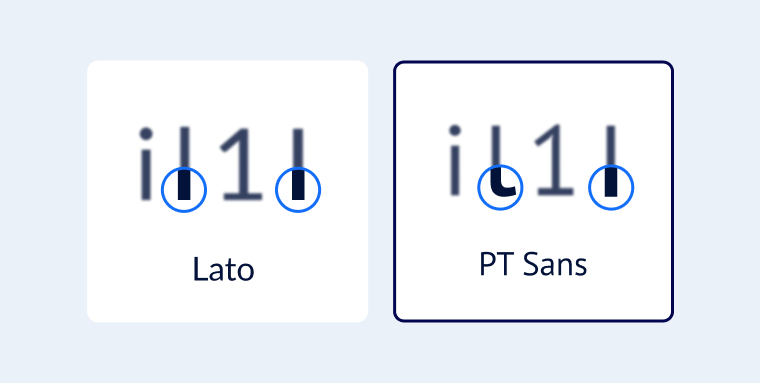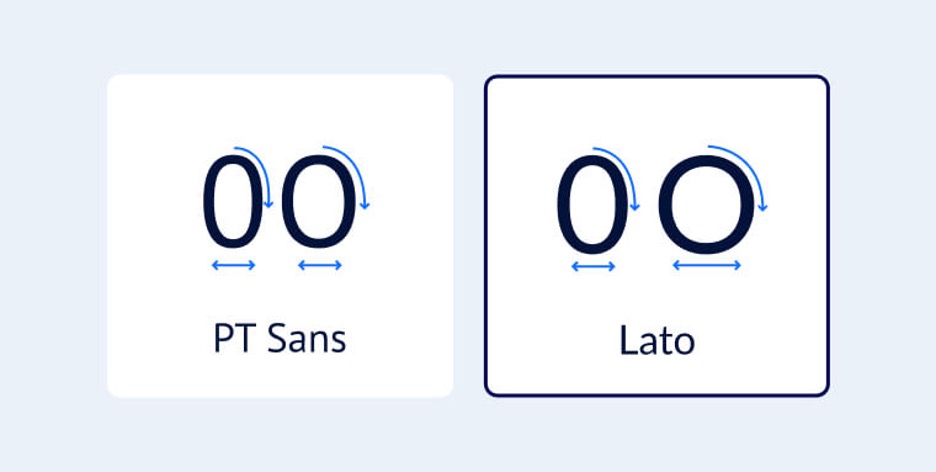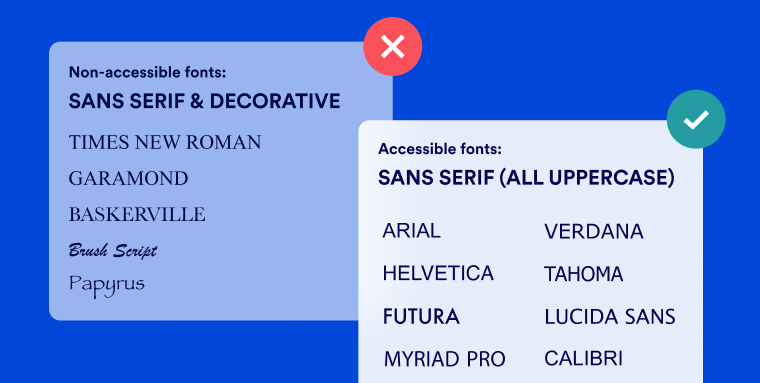
Under the Americans with Disabilities Act (ADA), most business websites and online documents need to be made accessible to the disability community.
In this guide, we’ll explore the most accessible font styles and families you should use on your website and online documents, and highlight those you should avoid in order to be truly welcoming ‌to people with disabilities.
Accessible fonts to use to create an ADA-compliant website:
• Arial
• Calibri
• Century Gothic
• Helvetica
• Tahoma
• Verdana
ADA compliance and web accessibility: an overview
The Americans with Disabilities Act (ADA) exists to ensure that people with disabilities have the same rights and opportunities as everyone else. The section of the ADA that applies to web accessibility is ADA Title III.
Under ADA Title III, businesses that are considered “public accommodations,” such as banks, public transportation, real estate agencies, restaurants, and many small businesses, need to ensure that their websites are accessible to people with disabilities.
Effectively, however, almost all places of business provide services and accommodations to the public. Therefore, ensuring their websites and online documents are ADA-compliant is relevant to almost all businesses.
WCAG and accessible fonts
Websites are generally viewed as ADA-compliant if they conform to the Web Content Accessibility Guidelines (WCAG). Created by the World Wide Web Consortium (W3C), WCAG is considered by many to be the most important protocol shaping global web accessibility policy.
WCAG includes a number of sections that apply to content visibility and design. These can help website owners and designers choose fonts that are most accessible to people with disabilities.
The most important WCAG sections that apply to fonts are:
1. Web content should be presented in different ways: When applied to fonts, it is important to select one that is easy to read when resized or presented with different styling or spacing
2. Web content should be easy to see or hear: To ensure content is easy to see, it’s important to consider a font’s family, size, spacing, and color
We will expand on these principles and explain how they translate to specific font styles and families later in the blog. To skip that section, you can click here.
It’s important to note that WCAG applies not only to websites, but to a variety of web-based applications, including online documents (e.g., PDFs), emails, and videos. These assets will need to feature accessible fonts, as well.
The importance of using accessible fonts
Using accessible fonts within your website and other digital assets is critical for many people with disabilities, allowing them to properly access content. However, accessible fonts can also prove beneficial to other website visitors, as well.
Many people glance at text rather than read every individual word, especially when they’re distracted, stressed, or multitasking. To that end, a large, highly-readable font can prove very helpful.
Additionally, using highly-readable and accessible fonts can help your website rank in search engines. Fonts have a deciding impact on a website’s level of readability, and websites viewed by Google and other search engines as those that are highly readable tend to rank higher.
Accessible fonts: a complete guide
Fonts that conform with WCAG (and are thus in compliance with the ADA) are defined by the following characteristics:
• They are simple and familiar
• They are composed of letters and characters that are easily distinguishable
• They exhibit sufficient size and weight to allow for comfortable reading
• They are composed of letters that do not mirror each other
• They have enough spacing between characters and lines
• They are not excessively decorative or italicized
• They contrast sufficiently with their background color
Let’s dive deeper and examine how to select accessible font families, and how color and size impact font accessibility.
How to choose an accessible font family
Choosing an accessible font starts with choosing the right font family. This usually means choosing a font that isn’t italic, highly-decorative, or otherwise unusual.
Serif fonts contain decorative elements such as marks or lines at the end of a character’s stroke. Conversely, sans-serif fonts do not contain decorative elements and are more block-like. This can make them slightly more readable.